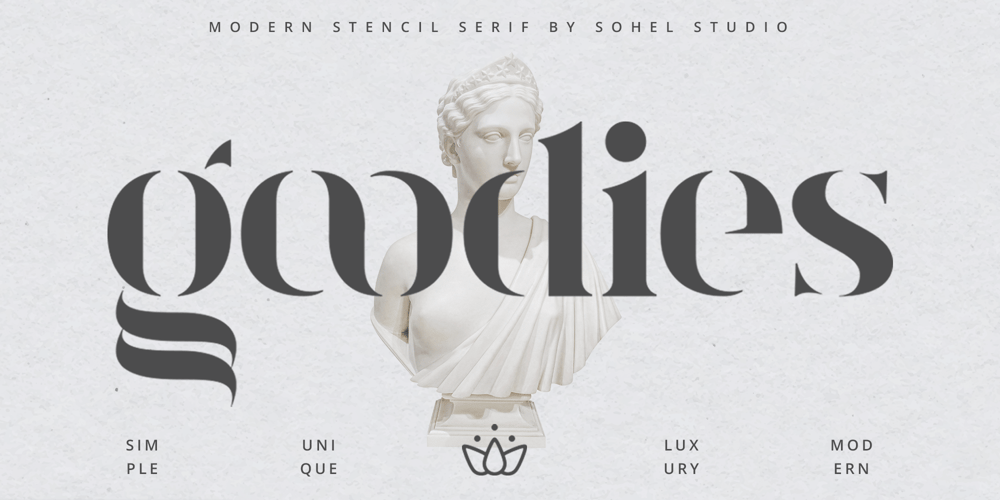
Goodies Stencil
Goodies Stencil font
Goodies Stencil Font Family was designed by Akhmad Husain Rifa’i and published by Sohel Studio. Goodies Stencil contains 2 styles and family package options. Say hi to “Goodies Stencil” Modern Stencil Serif . That has a unique style & luxurious look. This typeface is perfect for an elegant & luxury logo , classy editorial design, women’s magazine, fashion brand , cosmetic brand, fashion promotion , modern advertising design, invitation card, art quote, home decoration , book/cover titles, special events, and much more.Goodies Stencil Features: · 2 Weights font (Regular,Italic) · Uppercase And Lowercase · Numerals & Punctuation · Accented characters · Multilingual Support · Unicode PUA Encoded While using this product, if you encounter any problem or spot something we may have missed, please don’t hesitate to drop us a message. We’d love to hear your feedbacks in order to further fine-tune our products. Thanks and have a wonderful day